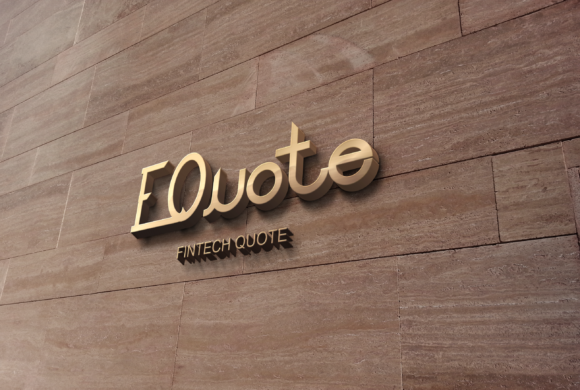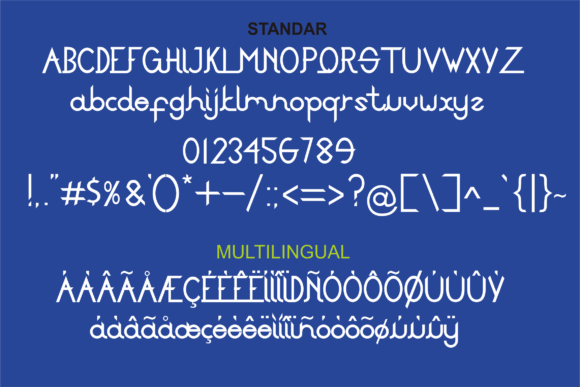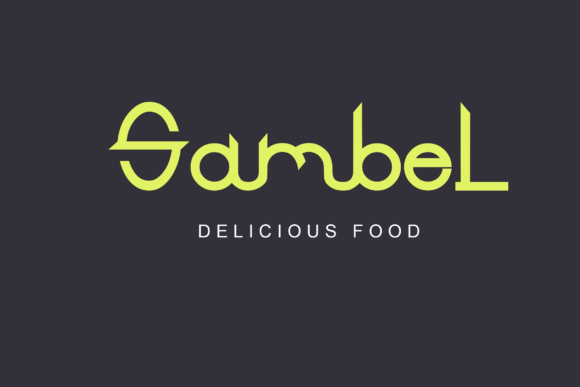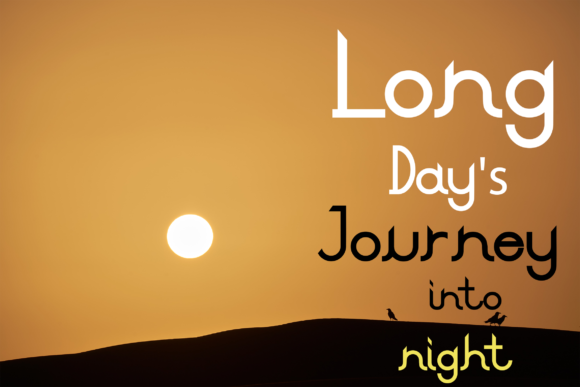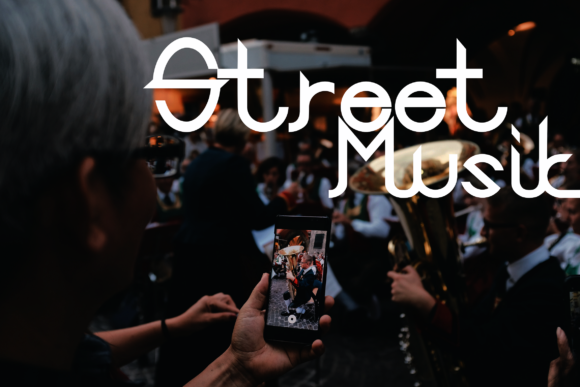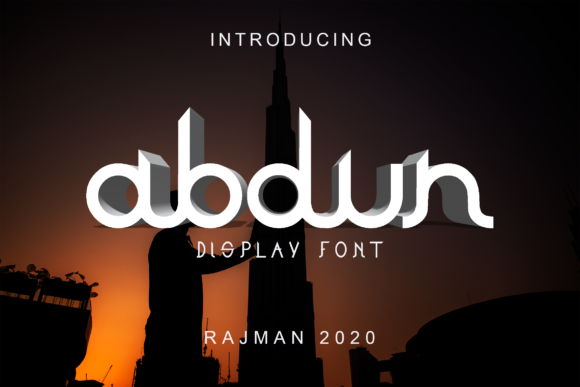
Introducing Abdun Font: The Futuristic Display Font That Elevates Design
In the world of typography, fonts play a crucial role in shaping the visual identity of a design. With the ever-evolving landscape of graphic design, it’s essential to stay ahead of the curve with fresh and innovative fonts. One such font that has been making waves in the design community is Abdun Font. In this article, we’ll delve into the unique features of Abdun Font and explore how it can elevate your design game.
What is Abdun Font?
Abdun Font is a futuristic display font that boasts a unique style, perfect for designers and crafters looking to add an edge to their work. Its sharp edges and dynamic ligatures make it an eye-catching addition to any design project. Whether you’re working on a logo, branding materials, or marketing collateral, Abdun Font is sure to turn your design idea into a stunning visual masterpiece.
Key Features of Abdun Font
- Sharp Edges: Abdun Font’s sharp edges give it a cutting-edge look that’s perfect for modern designs. The font’s geometric shape and precise lines make it ideal for creating sleek and sophisticated visuals.
- Dynamic Ligatures: What sets Abdun Font apart is its dynamic ligatures. These special characters connect letters in a way that creates a fluid, dynamic look. This feature adds an extra layer of uniqueness to your design, making it stand out from the crowd.
- Futuristic Style: Abdun Font’s futuristic style is perfect for designers who want to create a bold and avant-garde look. Its space-age aesthetic makes it ideal for projects that require a forward-thinking approach.
Who Can Benefit from Abdun Font?
Abdun Font is a versatile font that can be used by a wide range of designers and crafters, including:
- Graphic Designers: Whether you’re working on a logo, brochure, or social media graphics, Abdun Font can add a touch of sophistication and modernity to your designs.
- Branding Experts: If you’re looking to create a bold and memorable brand identity, Abdun Font is an excellent choice. Its unique style and sharp edges make it perfect for creating eye-catching logos and branding materials.
- Digital Artists: Abdun Font can also be used by digital artists who want to add a futuristic touch to their artwork. Its dynamic ligatures and sharp edges make it an excellent choice for creating stunning visuals.
Tips for Using Abdun Font Effectively
To get the most out of Abdun Font, here are some tips to keep in mind:
- Use it as a Display Font: Abdun Font is best used as a display font, perfect for headings, titles, and other prominent text elements.
- Experiment with Ligatures: Take advantage of Abdun Font’s dynamic ligatures to create unique and interesting text combinations.
- Pair it with Other Fonts: Abdun Font can be paired with other fonts to create a striking contrast. Experiment with different font combinations to find the perfect balance for your design.
Abdun Font is a game-changing display font that can elevate your design game. Its unique style, sharp edges, and dynamic ligatures make it perfect for designers and crafters looking to create stunning visuals. Whether you’re working on a graphic design project, branding materials, or digital art, Abdun Font is sure to turn your design idea into an eye-catcher. So why wait? Give Abdun Font a try today and experience the power of futuristic typography!